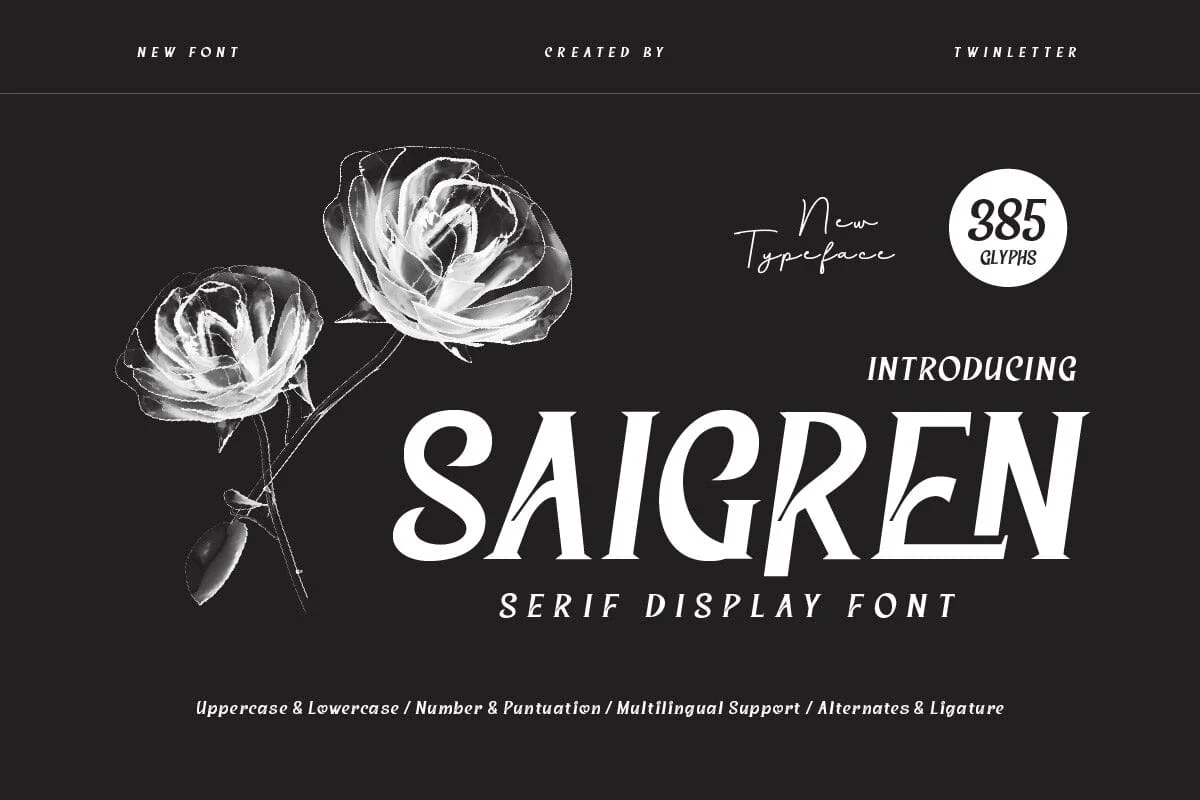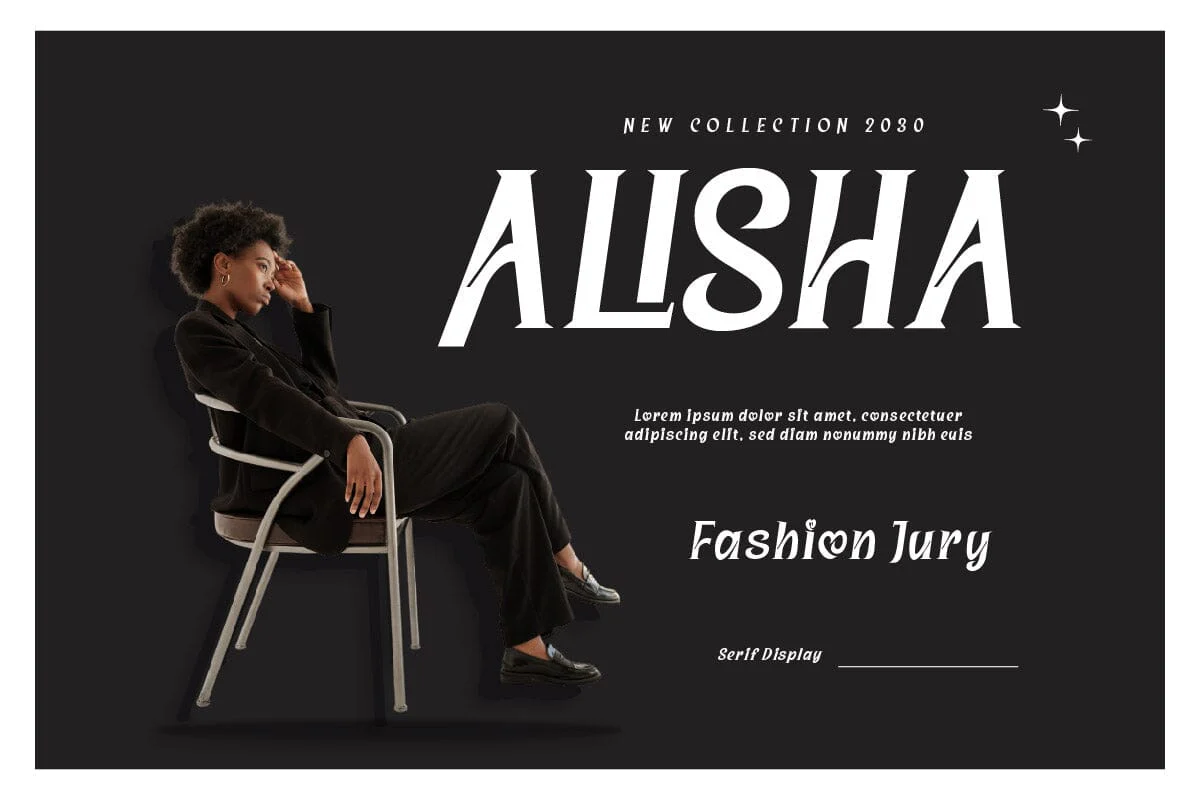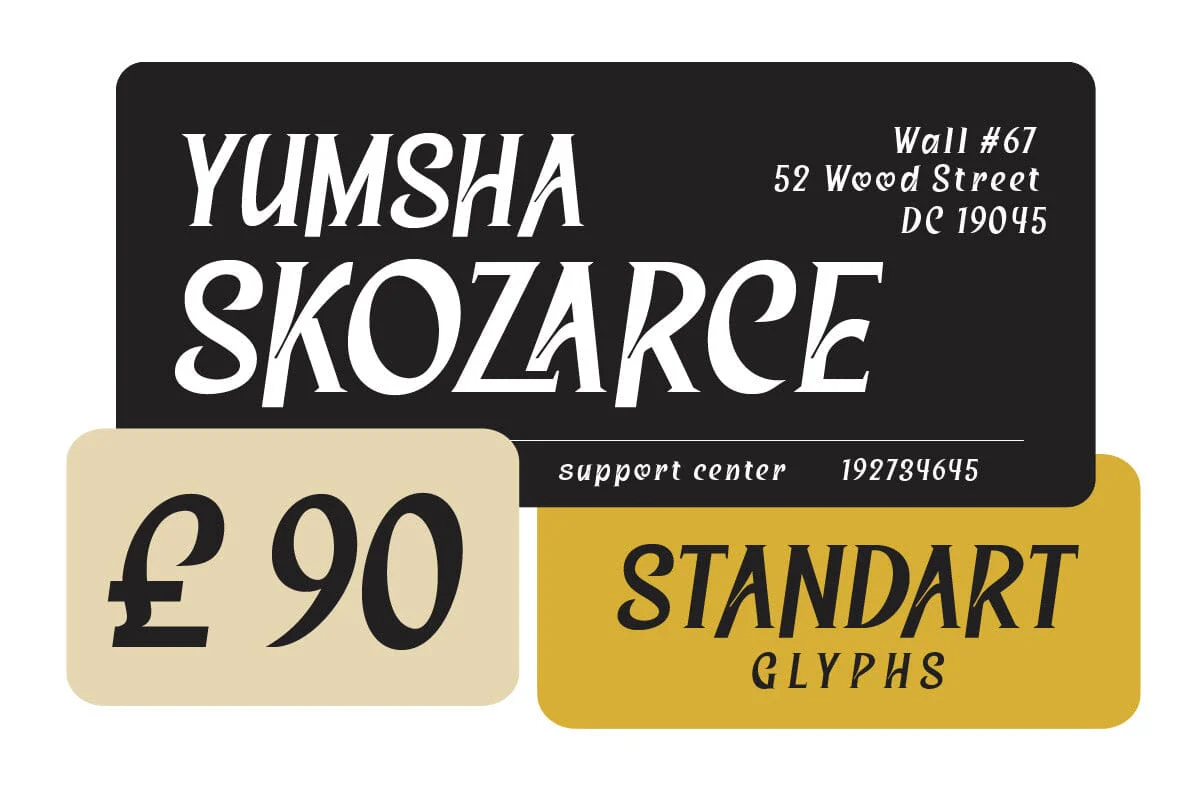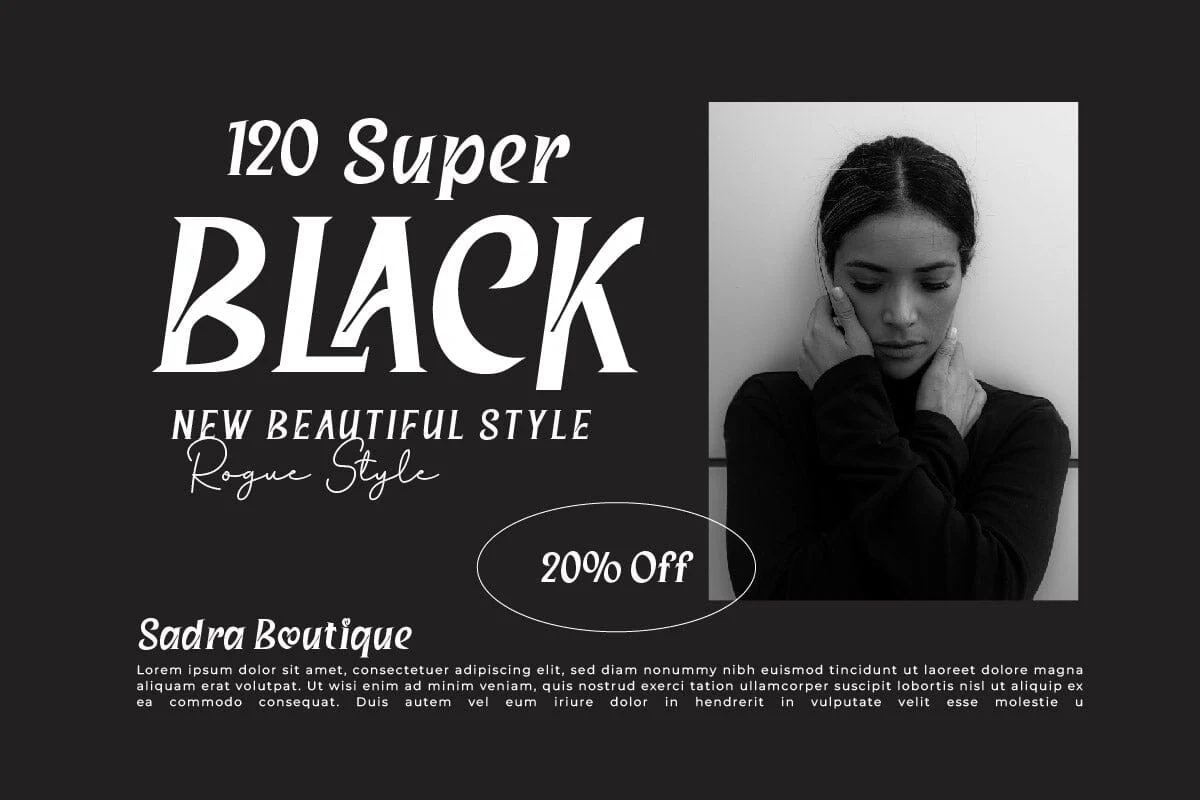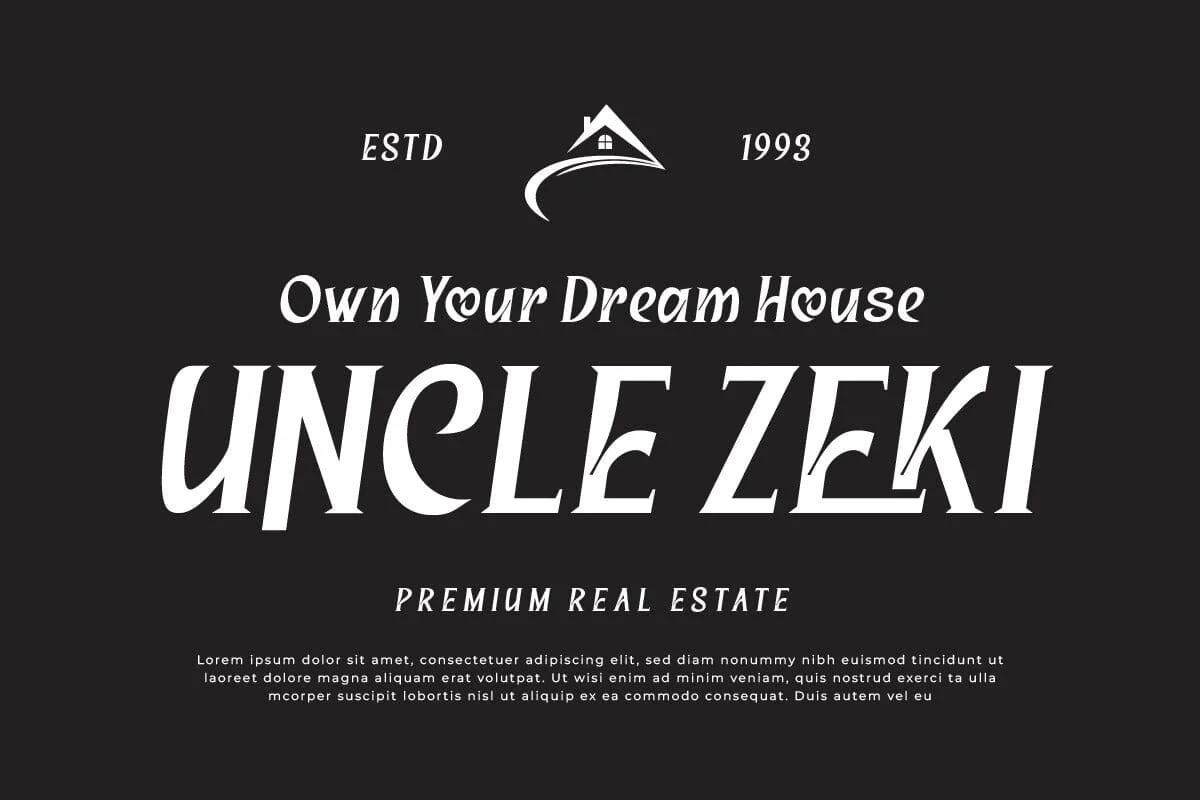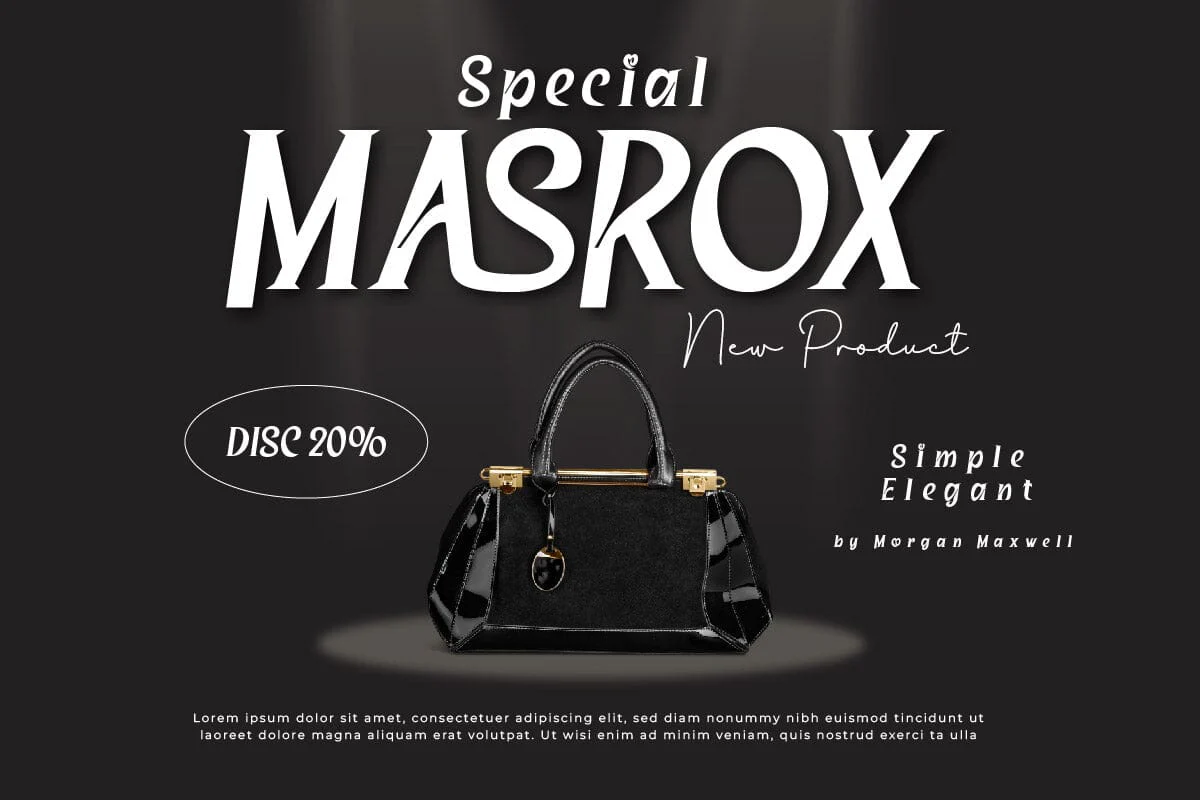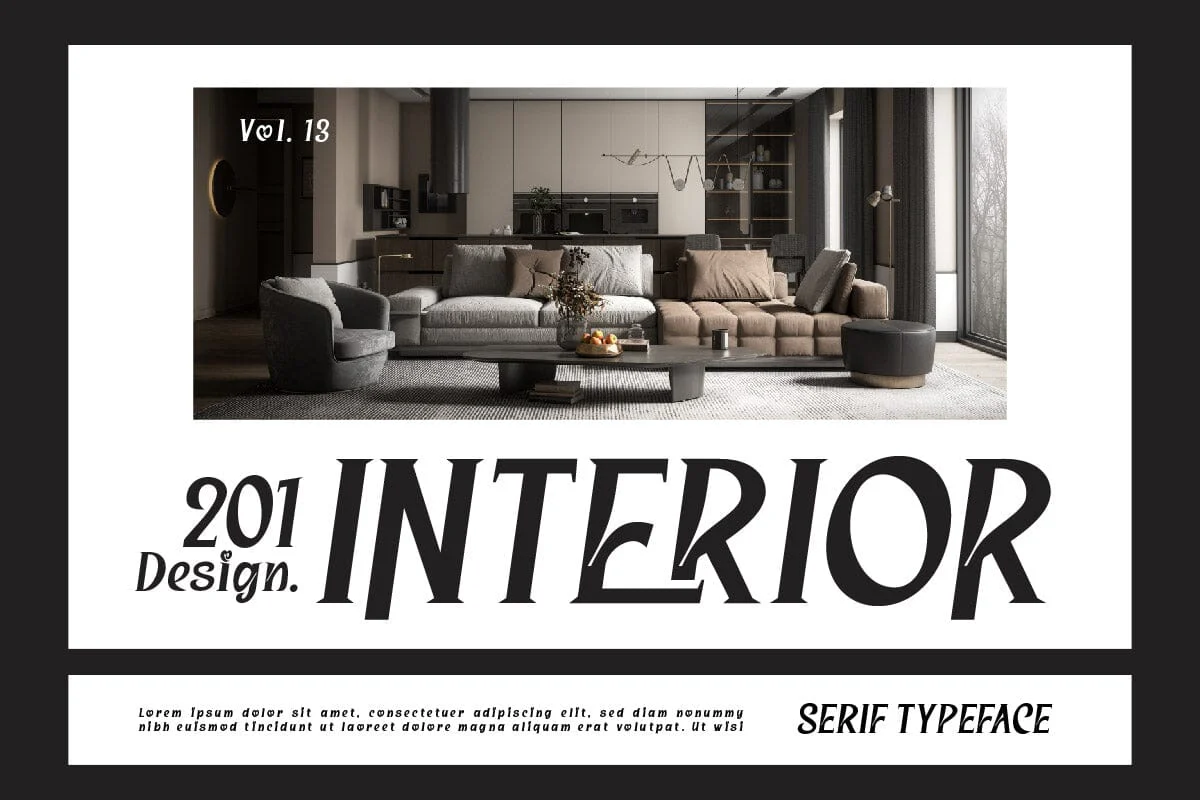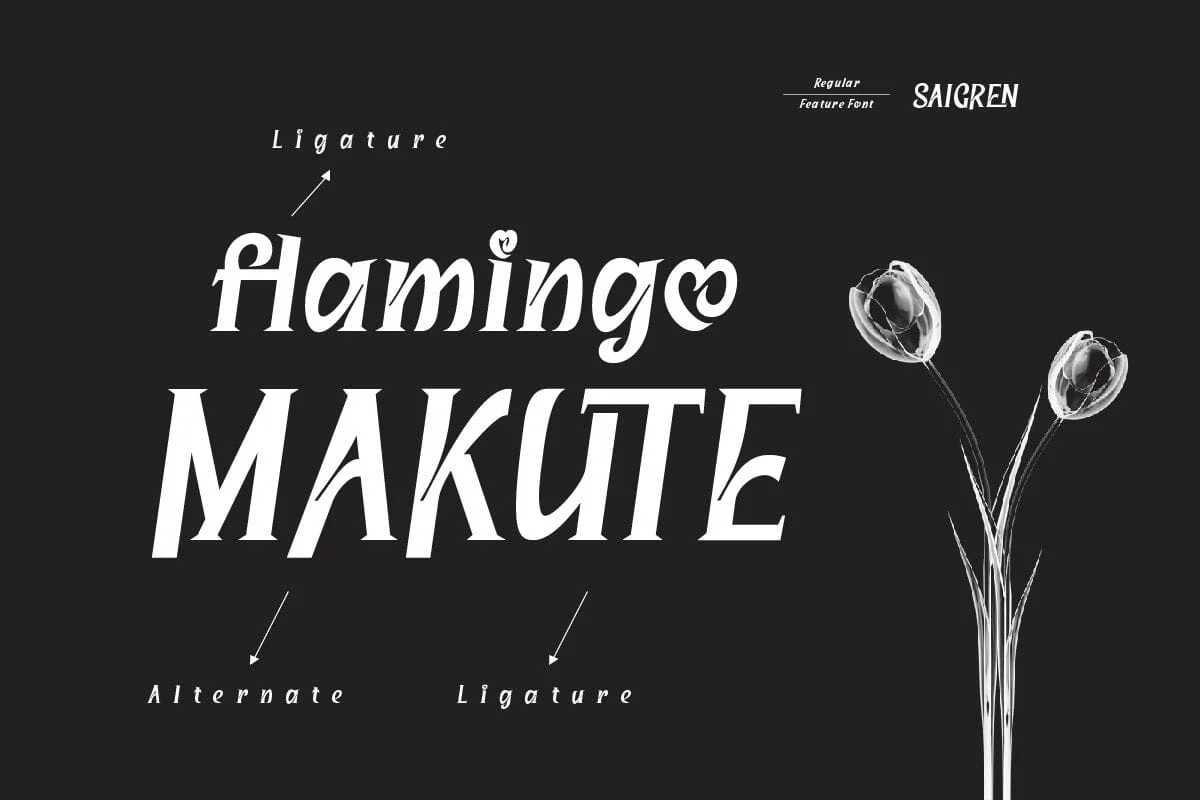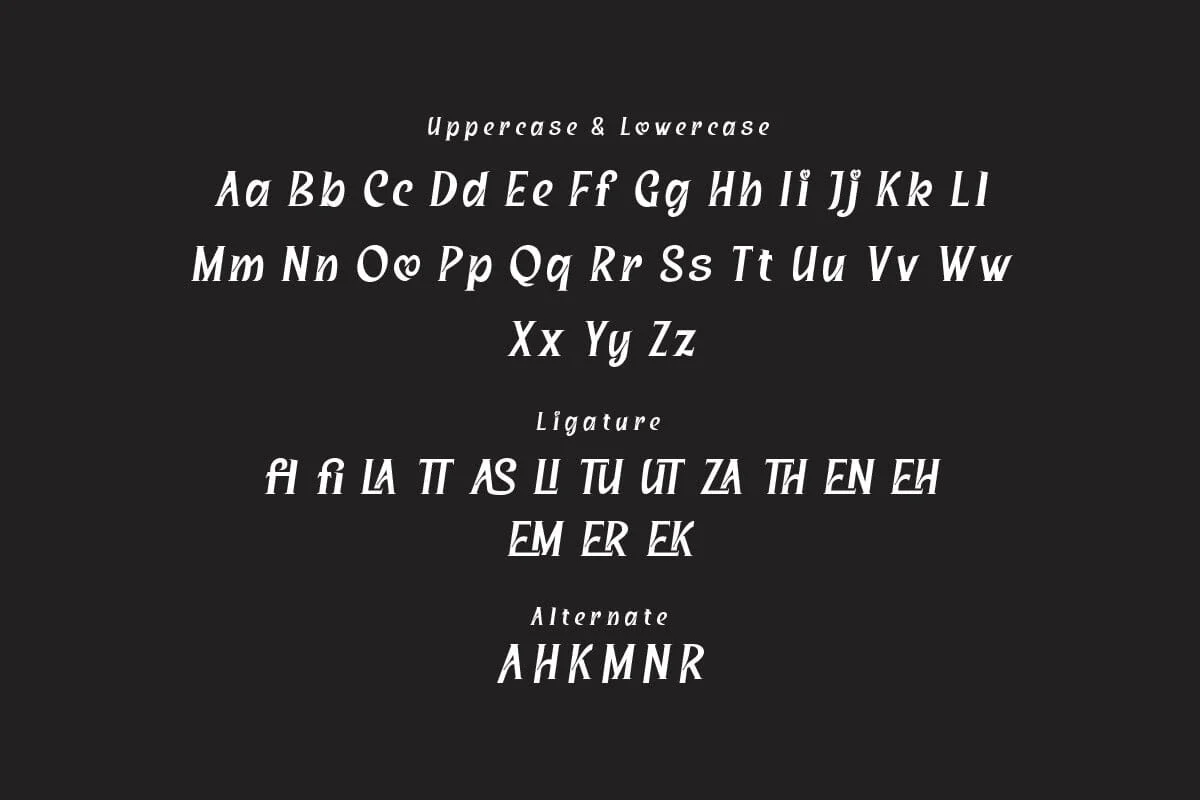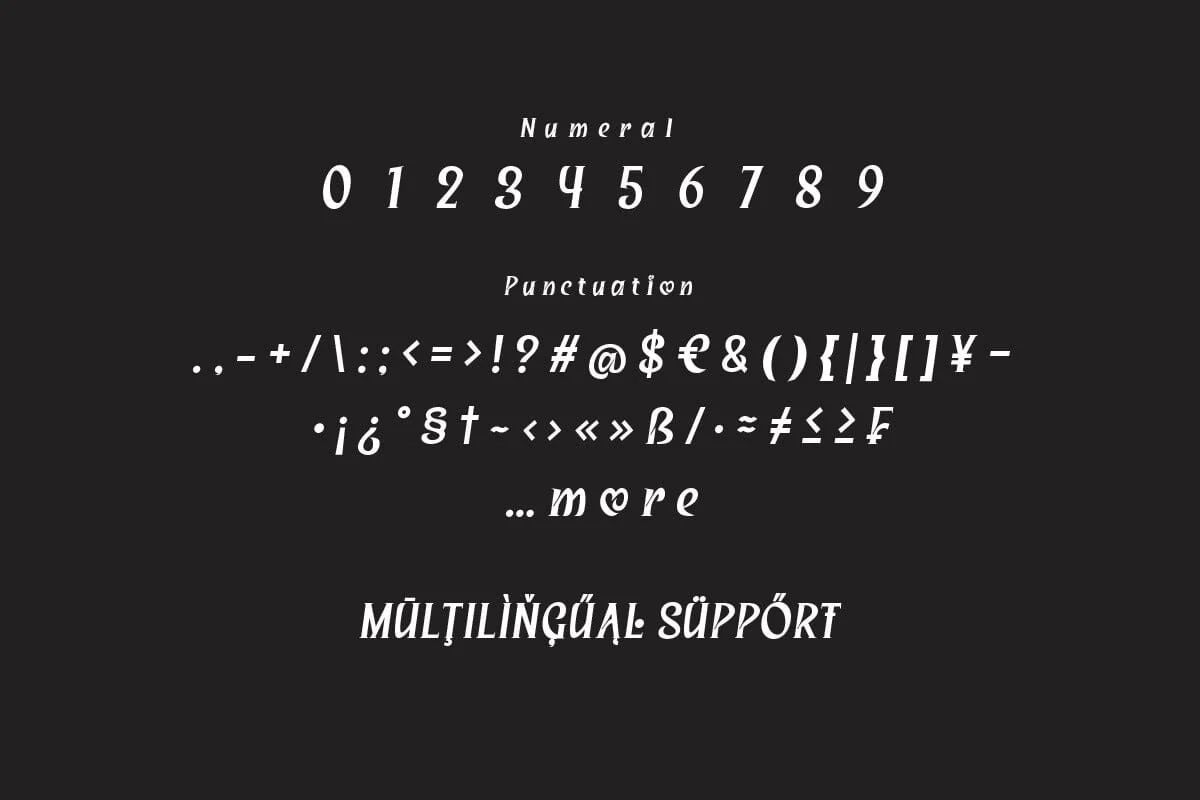
Saigren - Serif Display Font
Welcome to the elegance of Saigren, a serif display font that combines classic sophistication with modern versatility. Saigren is meticulously crafted to bring a touch of refinement and luxury to your designs. Ideal for branding, editorial layouts, and high-end fashion designs, this font exudes confidence and grace. The refined serifs and balanced proportions make Saigren perfect for projects that require a timeless, professional look. Whether you're creating a chic logo or an elegant magazine cover, Saigren enhances your work with its polished charm. Experience the perfect blend of tradition and innovation with Saigren.